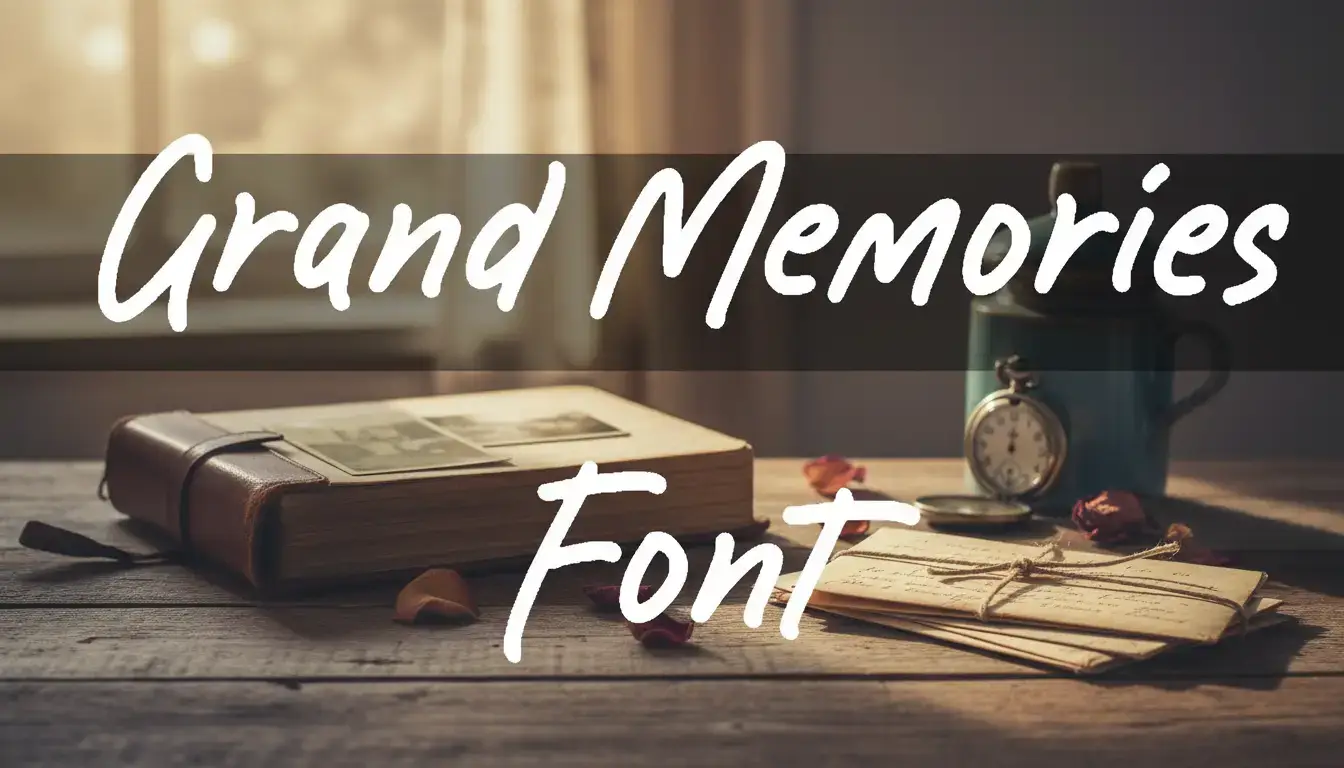
Grand Memories Font
Grand Memories Font Preview
Grand Memories
Grand Memories is a handwritten font created by Balpirick Studio. The letters have the small wobbles and personality of real handwriting, so your text feels warm instead of printed. You can download it for free and test it with your own words in the preview above.
What You Can Type With Grand Memories
With complete upper and lowercase letters and all ten digits, Grand Memories is ready for real wording, not just a single headline. Everyday marks like &, !, ? and @ are there too. There are no accented letters like é or ñ, so it's best kept to English text.
Where Grand Memories Works Best
Think of Grand Memories for greeting cards, journal pages and friendly social posts. Set it a bit larger than you would a normal text font. Handwriting styles lose their charm once they get too small to read comfortably.
Does Grand Memories support accented letters?
No. Grand Memories has no accented letters such as é, ñ or ü, so it's best for English text.